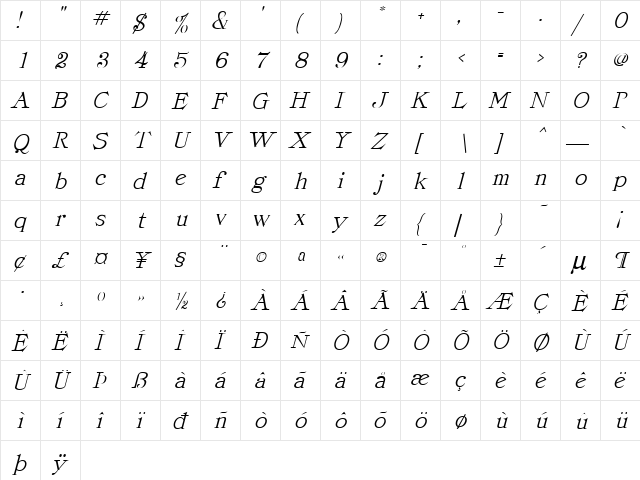
ProvLite-Italic Normal
Design Context for ProvLite-Italic Typeface
ProvLite-Italic offers clean, dependable letterforms without strong stylistic allegiance, making it a practical choice for designers who need flexibility. The slanted form adds forward momentum and visual energy.
Pro Tip: Use ProvLite-Italic for emphasis, pull quotes, and subheadings where its slanted energy can add rhythm to the layout.